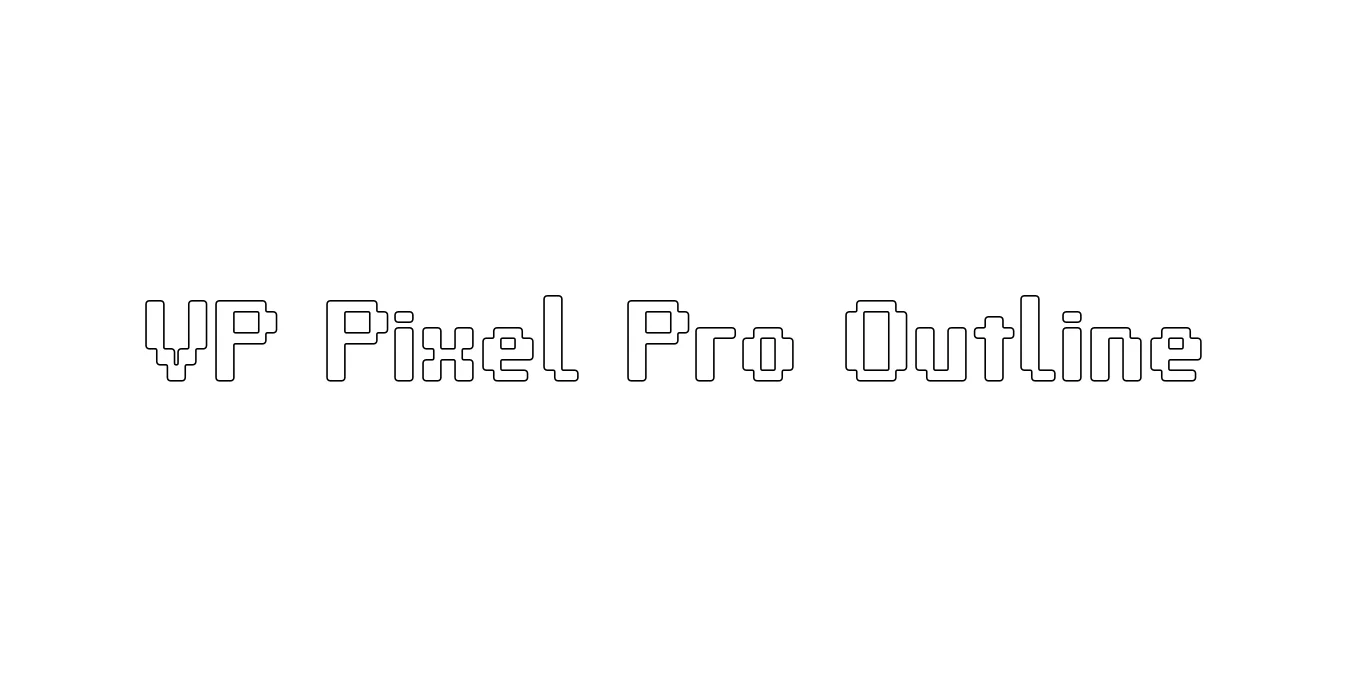
VP Pixel Pro Outline
Designed by Valery Proshkin (VP Fonts)
| Category | Pixel / Display |
| Designer | Valery Proshkin (VP Fonts) |
VP Pixel Pro Outline is a specialized variant of the larger VP Pixel Pro family, created by Valery Proshkin. This typeface is a modern homage to the 8-bit era, drawing significant inspiration from retro gaming consoles and early microcomputer interfaces. The Outline weight provides a unique aesthetic that maintains the blocky charm of pixel art while offering a hollowed-out structure that is perfect for layering and creating high-contrast visual hierarchies in digital environments.
Construction-wise, the font is built on a rigorous geometric grid, ensuring that each character remains legible even at small sizes. It bridges the gap between vintage nostalgia and contemporary techno-futurism, making it a favorite among indie game developers and graphic designers working on cyberpunk or tech-oriented projects. Its clean lines and consistent spacing allow for versatile use in both static graphics and dynamic user interfaces.
VP Pixel Pro Outline Best Uses
Ideal for retro-style indie games, head-up displays (HUDs), and menu interfaces.
Effective for tech-focused logos, esports team identities, and digital product packaging.
Perfect for high-impact display text in vaporwave or synthwave aesthetic posters.